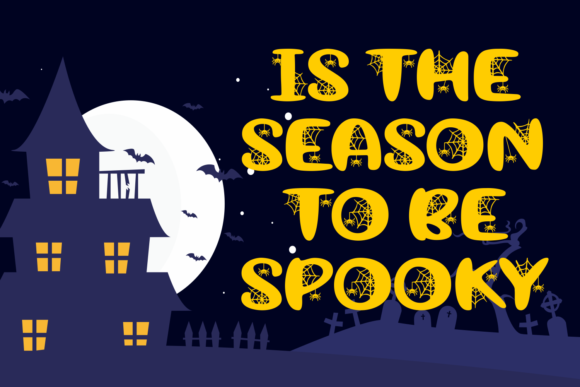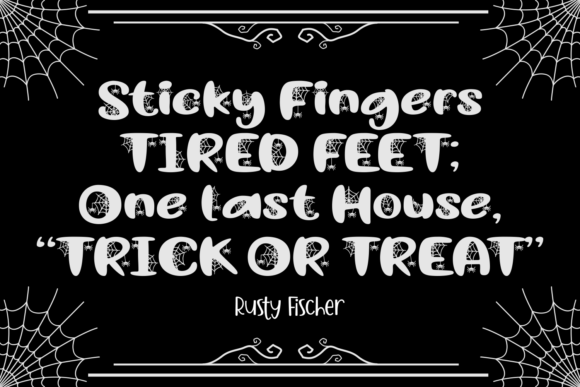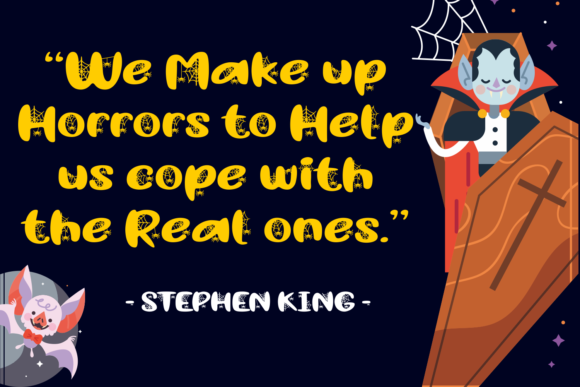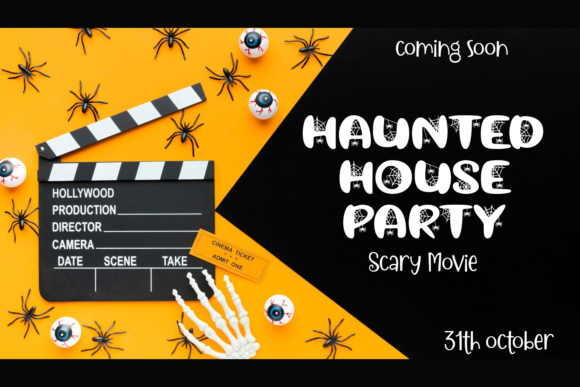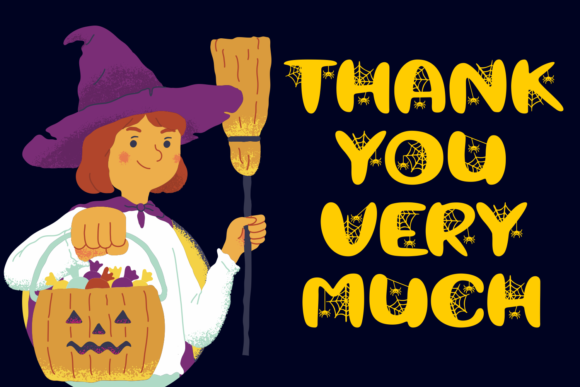
Unleash the Spookiness: Exploring the Ghosting Spider Font
As the witching hour approaches, designers and crafters are on the lookout for the perfect typography to add a dash of spookiness to their creations. Look no further than the Ghosting Spider Font, a delightfully eerie and playful decorative font that’s tailor-made for Halloween. In this article, we’ll dive into the world of Ghosting Spider, exploring its features, uses, and benefits for designers and crafters alike.
A Font that Casts a Spell
Ghosting Spider Font is a one-of-a-kind, spooky, and fun decorative font that’s designed to add a wonderful and eerie feel to various projects. Whether you’re working on stationery, games, movie titles, posters, or any other creative endeavor, this font is sure to cast a spell on your audience. Its unique, hand-crafted design features letters that seem to dance across the page, evoking the eerie movements of a spider.
Perfect for Halloween-themed Projects
Halloween is a time for creativity and self-expression, and the Ghosting Spider Font is the perfect tool to help you get into the spirit. With its creepy-crawly vibe, this font is ideal for:
- Halloween party invitations and decorations
- Spooky stationery, such as greeting cards and gift tags
- Eerie game titles and graphics
- Movie titles and posters with a horror or thriller theme
- Creepy crafts, such as DIY decorations and scrapbooking projects
Key Features of Ghosting Spider Font
So, what makes Ghosting Spider Font so special? Here are some of its key features:
- Unique and Hand-crafted Design: Each letter is carefully crafted to create a one-of-a-kind, spooky effect.
- High-quality and Scalable: The font is designed to be clear and legible, even at small sizes, making it perfect for a variety of applications.
Tips for Using Ghosting Spider Font
Now that you’ve got your hands on Ghosting Spider Font, here are some tips to help you make the most of it:
- Experiment with Colors: Try pairing the font with bold, bright colors to create a striking contrast.
- Mix and Match: Combine Ghosting Spider Font with other fonts to create a unique and eye-catching effect.
- Play with Texture: Add texture to your design by incorporating patterns, gradients, or images.
- Get Creative with Ligatures: Use ligatures to create a more whimsical and playful effect.
In conclusion, the Ghosting Spider Font is a must-have for designers and crafters looking to add a touch of spookiness to their creations. With its unique, hand-crafted design and versatility, this font is perfect for Halloween-themed projects and beyond. So, don’t be afraid to get creative and unleash the spookiness – download Ghosting Spider Font today and cast a spell on your audience!